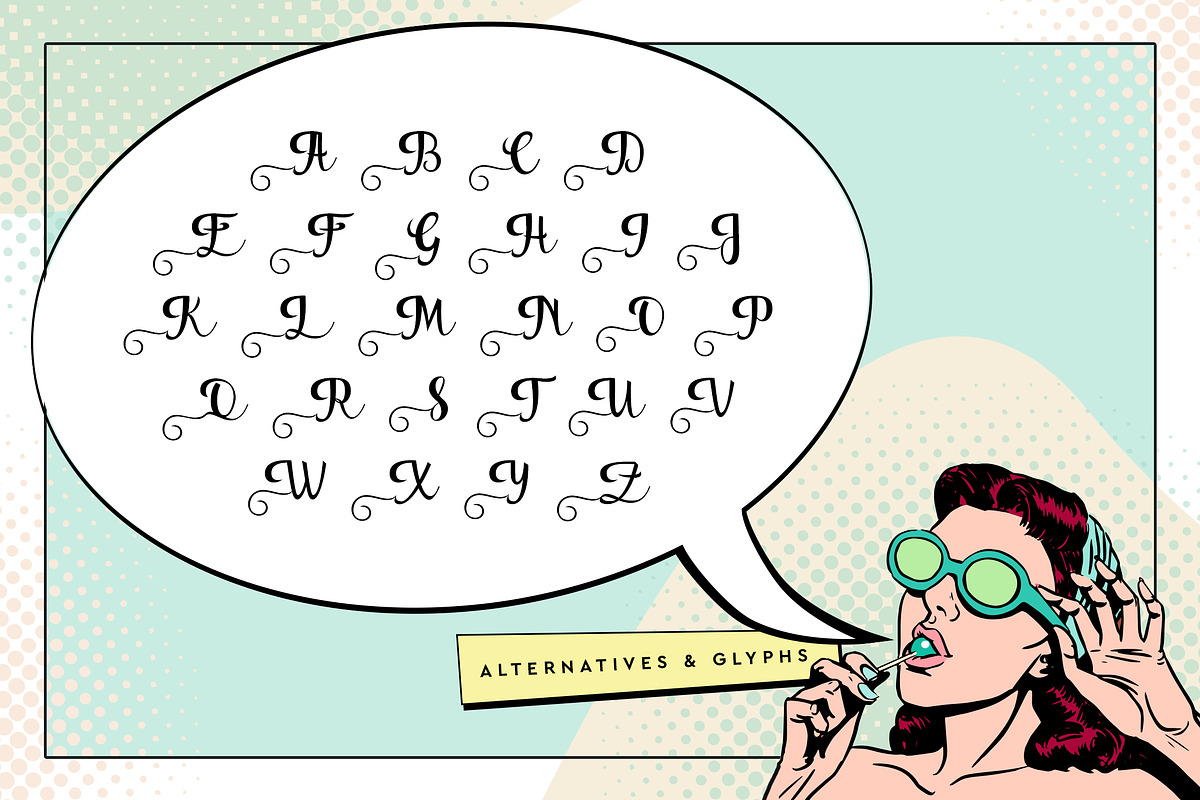
Golly Gosh
Golly Gosh is not only fun and daring but also comes packed with tonnes of extra glyphs and alternates. This swirly script font is perfect for your design projects.